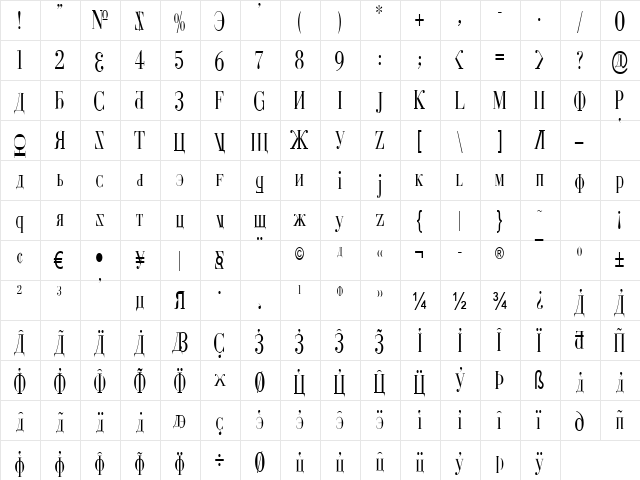
Cyberia Condensed Condensed
| Designer | Dan Zadorozny |
Design Context for Cyberia Condensed Typeface
Cyberia Condensed channels digital-age aesthetics through its sharp, structured letterforms — ideal for brands that want to signal innovation. Its narrow stance lets it pack a punch even in space-constrained designs.
Pro Tip: Use Cyberia Condensed in combination with a neutral sans for body text. Let it define the brand voice in headlines while keeping reading comfortable elsewhere.